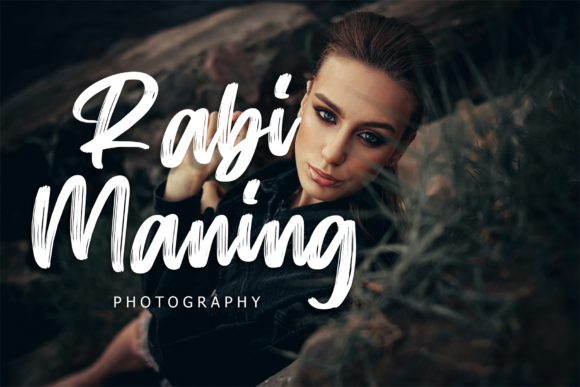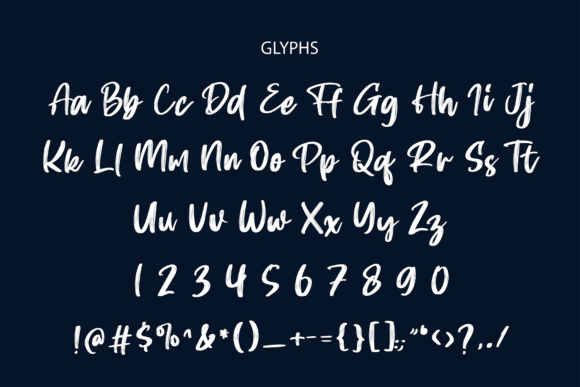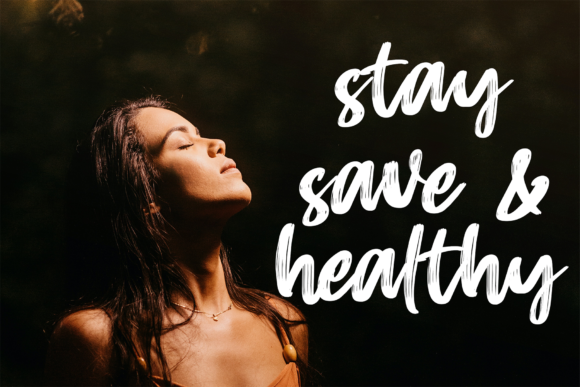
About Armeda Font
“Armeda” is a font that radiates beauty and tranquility, born from the graceful strokes of a brush pen. Its creation embodies a sense of ease, inviting you to embrace its versatile style and unleash your creativity to craft stunning works of art. From exquisite wedding invitations to captivating social media posts, this font elevates every project into a realm of elegance.
The essence of “Armeda” lies in its handwritten charm, a manifestation of the fluidity of brushwork. Its relaxed demeanor imparts a feeling of serenity to each letter, making it an ideal choice for projects that seek to convey both beauty and comfort. Whether you’re designing wedding invitations that evoke romance, curating stationary art that captivates the senses, or weaving together eye-catching social media posts, this font adapts seamlessly to your vision.
Incorporating “Armeda” into your designs unfurls a world of possibilities, with its versatile nature serving as a foundation for your creative ideas. It effortlessly transitions from one context to another, ensuring that your projects maintain a harmonious aesthetic. Whether it’s the timeless allure of a wedding invitation or the visual impact of a social media post, the font’s flexibility guarantees that your message is communicated with elegance and resonance.
“Armeda” stands as a creative partner, empowering you to bring forth visuals that reflect both beauty and relaxation. Regardless of your level of expertise, this font amplifies your artistic expression and transforms your concepts into captivating designs. Fall in love with the boundless versatility and serene charm of “Armeda,” and let it be the conduit that bridges your creativity with the hearts of those who engage with your creations.